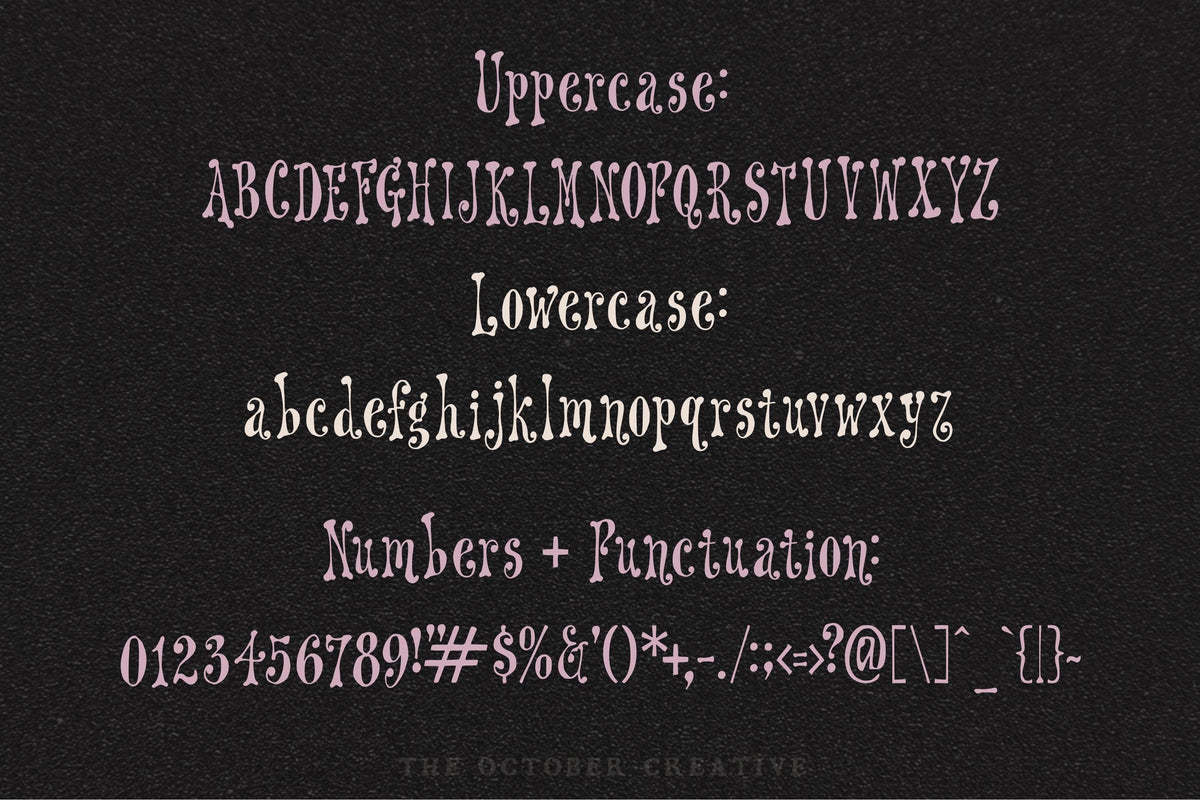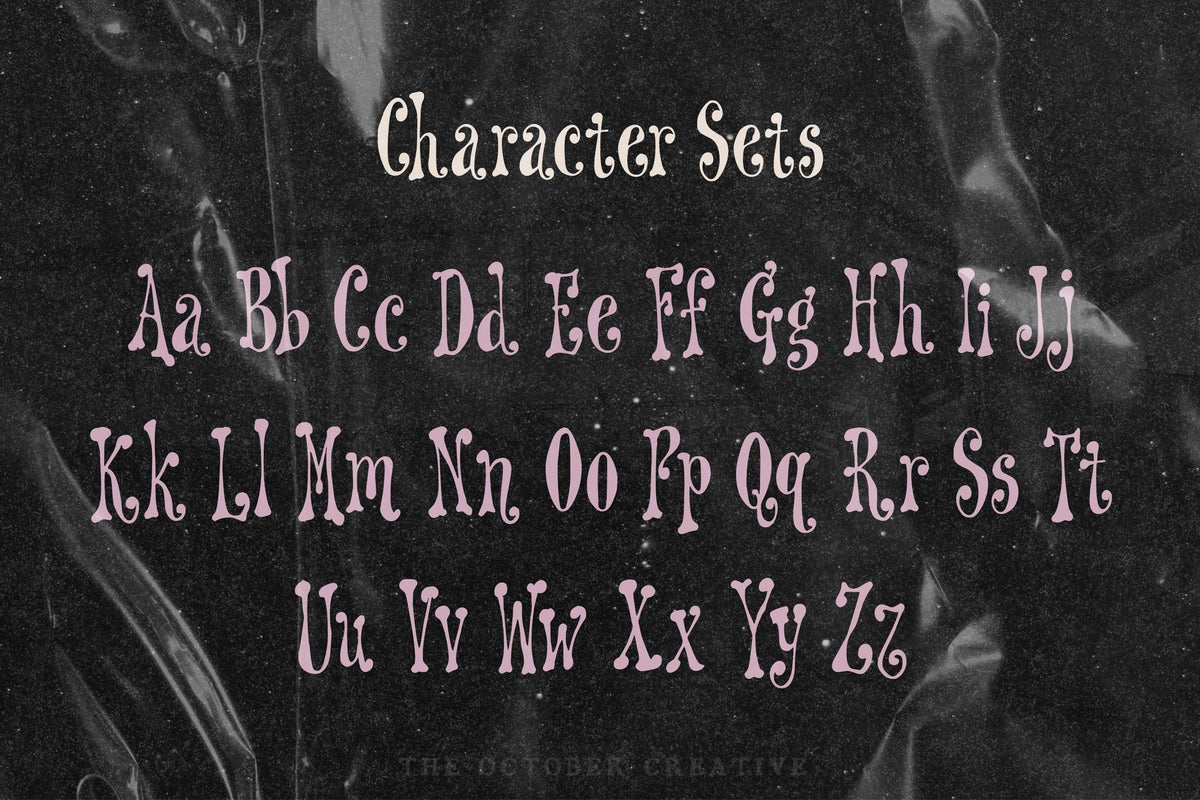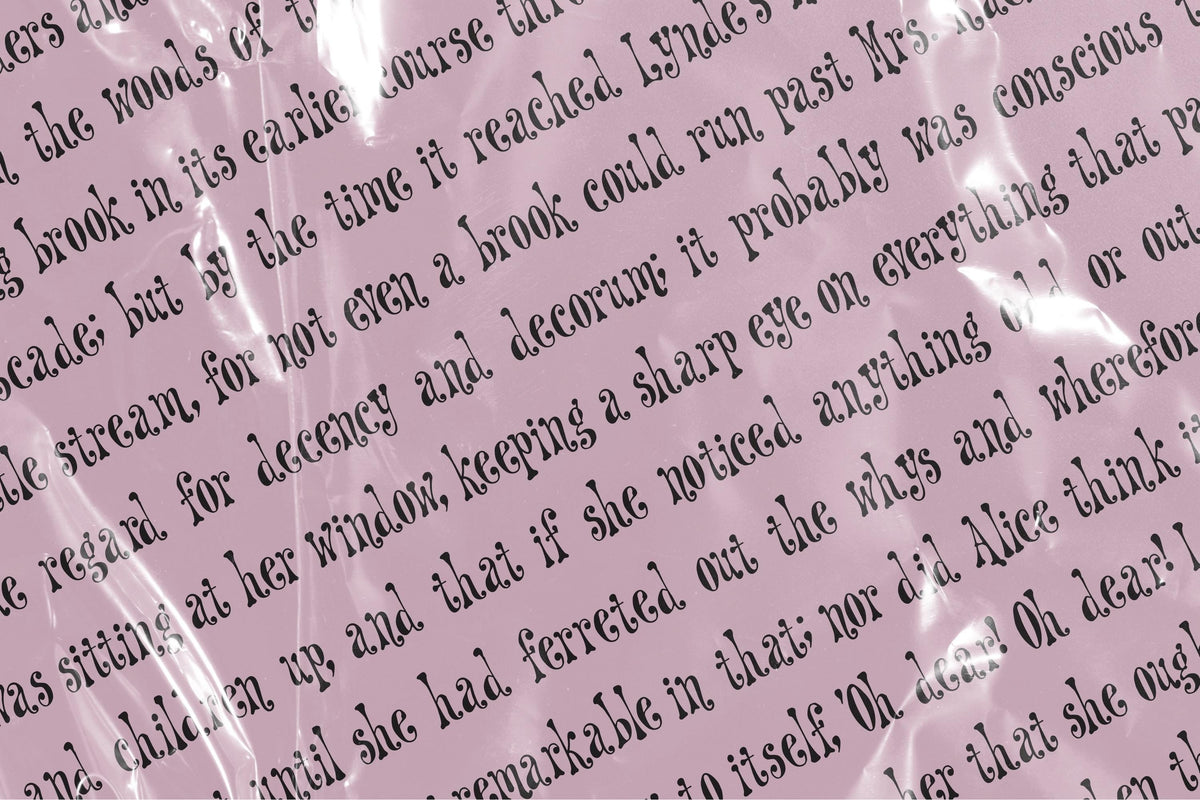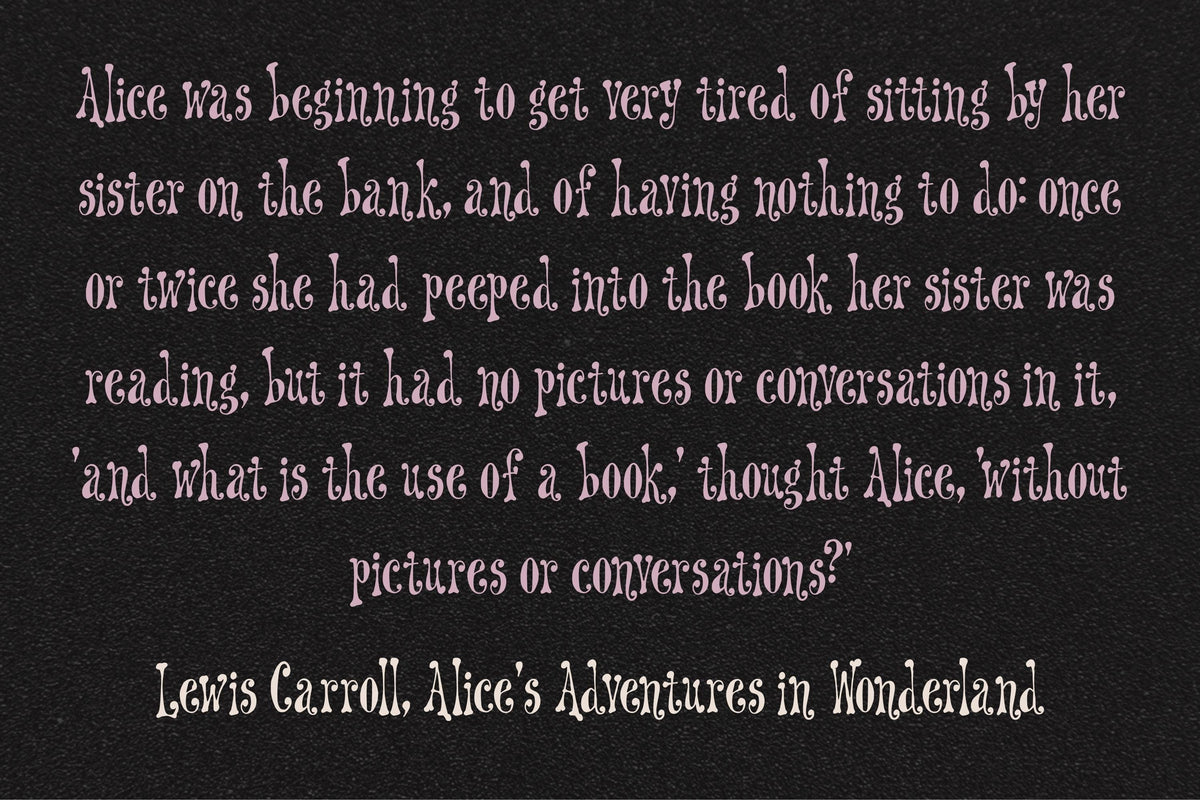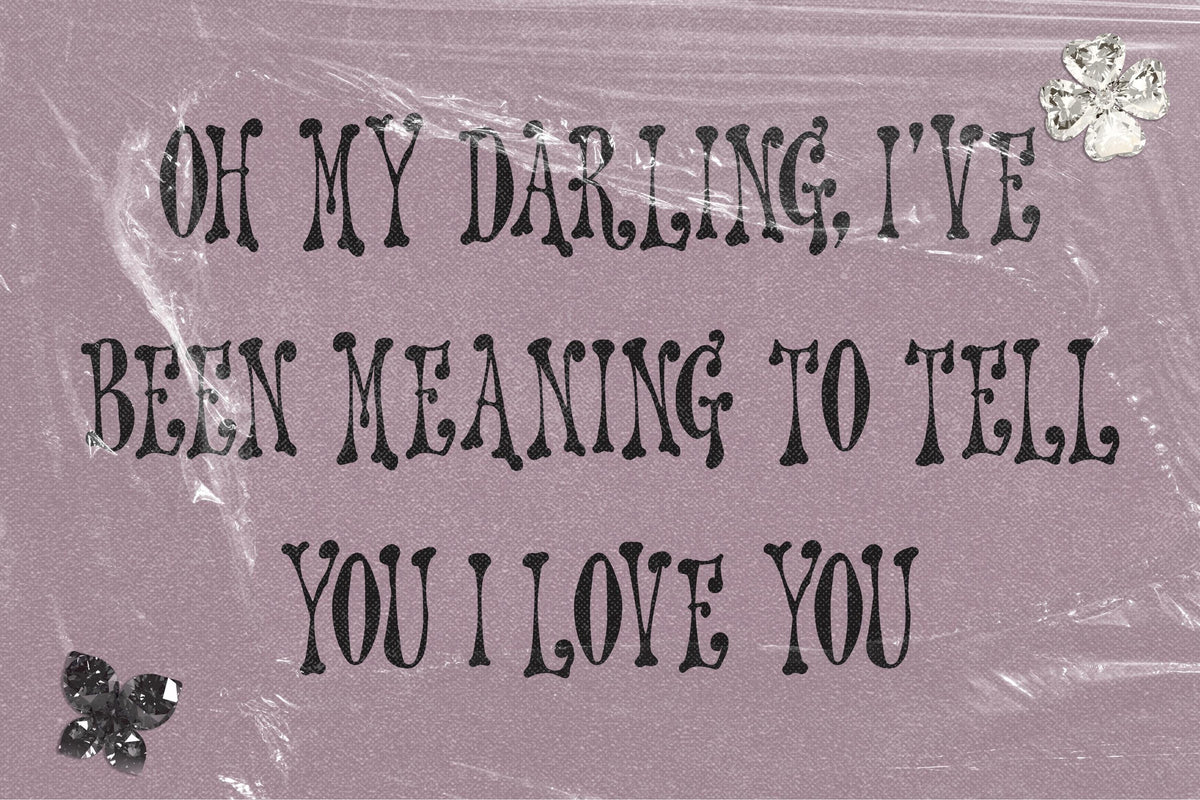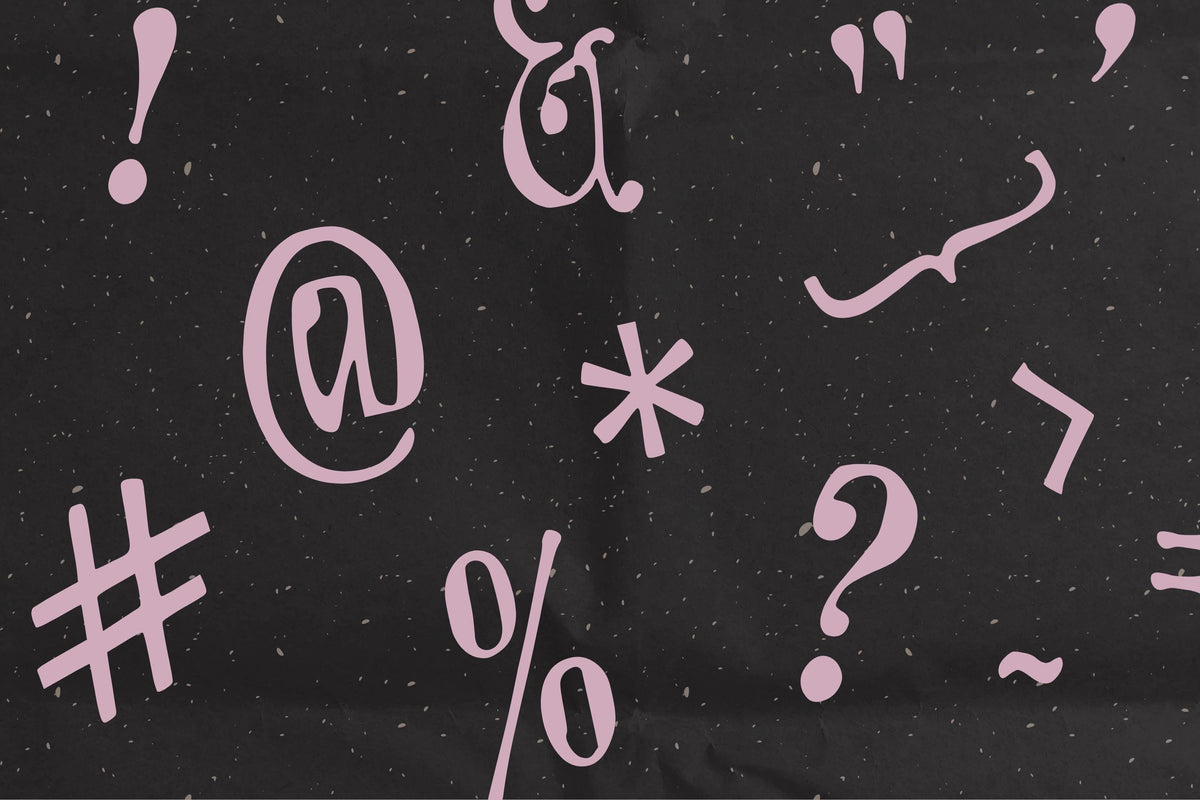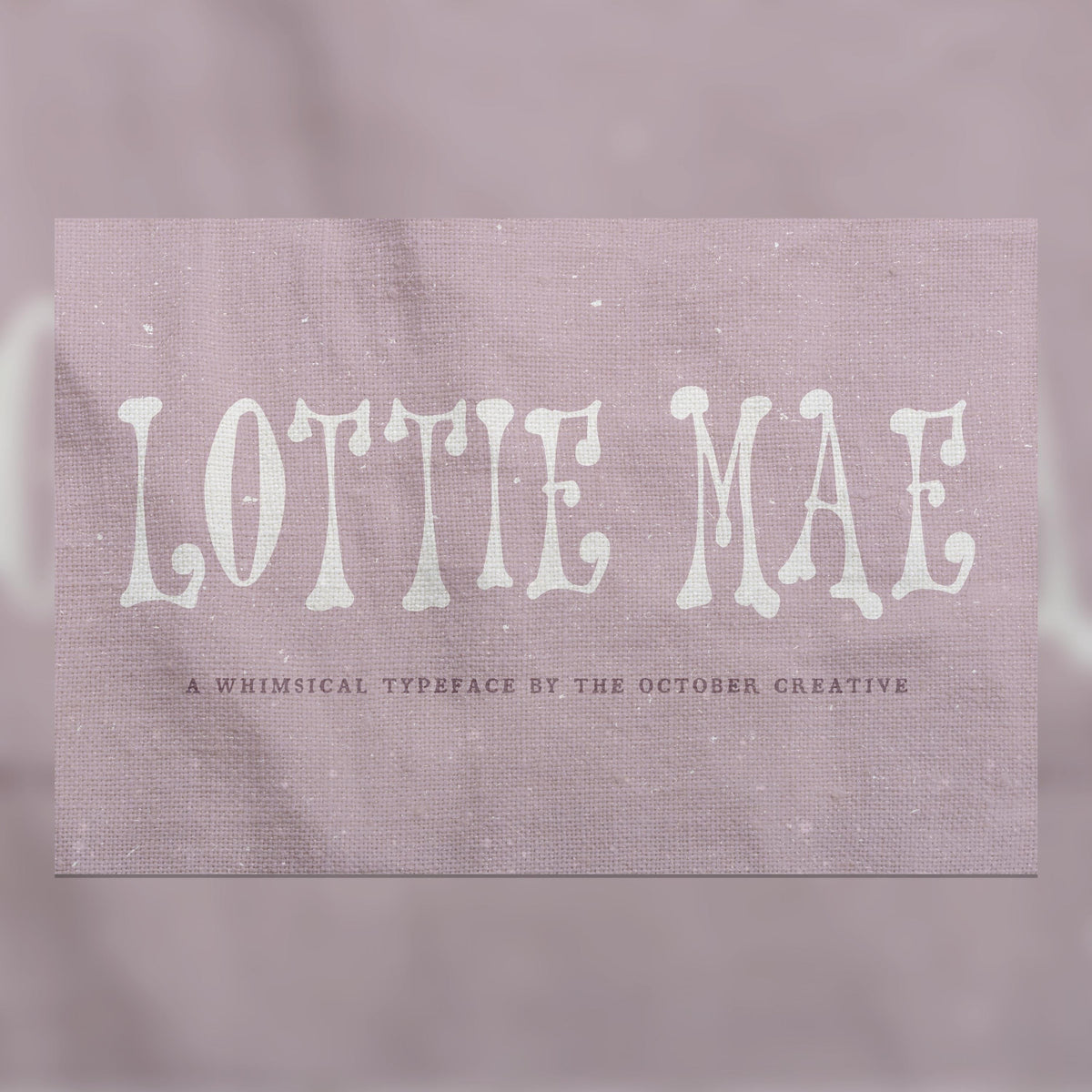
Lottie Mae Font
Lottie Mae gives familiar words a cozy 70s twist with softly squared ends and rounded letters. Try it on kitchen signs, recipe titles, and labels for the good things you've made to share.